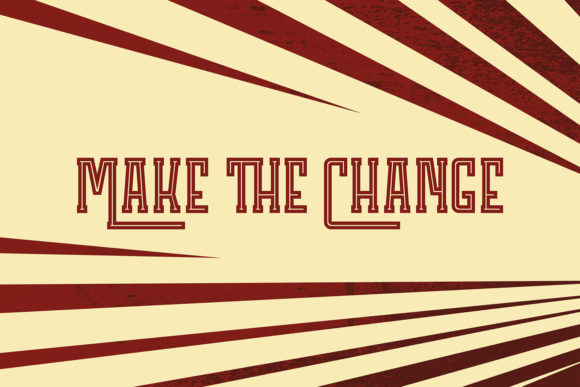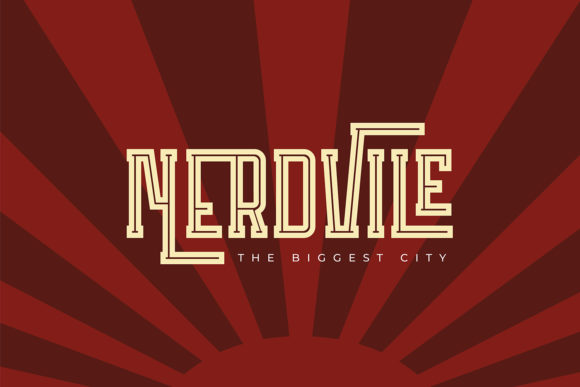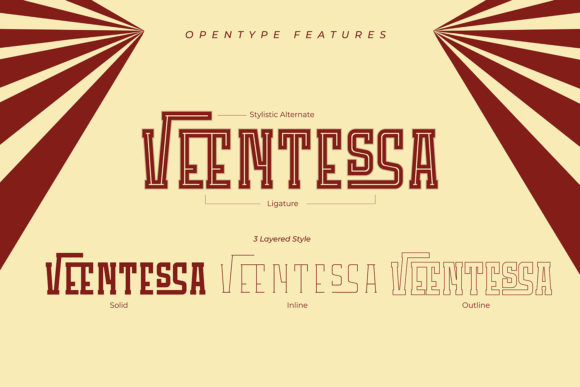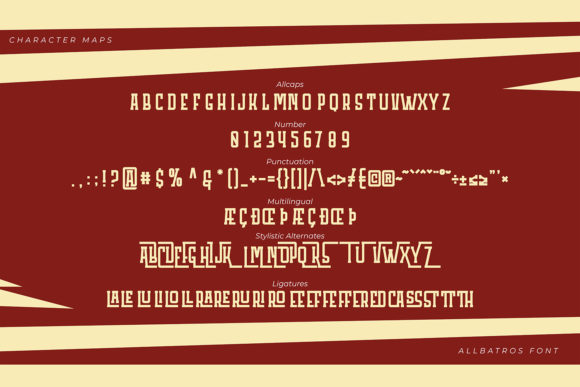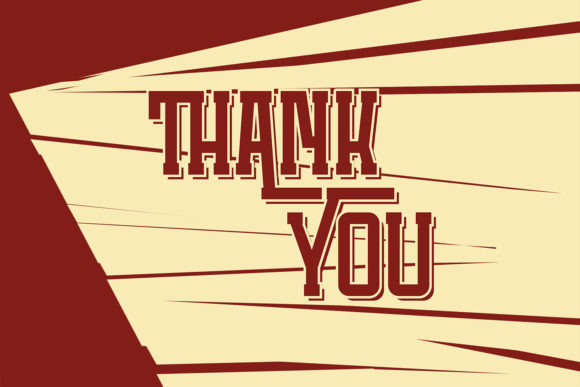
Introducing Allbatros Font: A Timeless Bold and Vintage Styled Serif
In the world of typography, fonts play a crucial role in conveying the tone and personality of a design. For designers and crafters, finding the perfect font can be a daunting task. However, if you’re looking for a bold and vintage styled serif font that can elevate your creations, look no further than Allbatros Font. In this article, we’ll explore the features and benefits of Allbatros Font, and why it’s an incredibly valuable asset to your font library.
What is Allbatros Font?
Allbatros is a bold and vintage styled serif font that exudes a sense of classic elegance and sophistication. Its unique design makes it perfect for a wide range of applications, from branding and advertising to packaging and editorial design. The font’s bold and sturdy structure ensures that it stands out, while its vintage flair adds a touch of nostalgia and character.
Key Features of Allbatros Font
- Bold and Sturdy Structure: Allbatros Font features a bold and sturdy structure that makes it perfect for headlines, titles, and other display text.
- Vintage Flair: The font’s vintage flair adds a touch of nostalgia and character to any design.
- Serif Details: The serif details on Allbatros Font add a level of sophistication and elegance, making it perfect for high-end branding and advertising.
- Versatility: Allbatros Font is incredibly versatile, making it suitable for a wide range of applications, from digital design to print.
Benefits of Using Allbatros Font
- Elevate Your Designs: Allbatros Font has the potential to elevate any creation, adding a touch of sophistication and elegance.
- Stand Out from the Crowd: The font’s bold and sturdy structure ensures that your designs stand out from the crowd.
- Increase Brand Recognition: By using a unique and recognizable font like Allbatros, you can increase brand recognition and build a strong visual identity.
In conclusion, Allbatros Font is a bold and vintage styled serif font that has the potential to elevate any creation. Its unique design, versatility, and range of benefits make it an incredibly valuable asset to your font library. Whether you’re a graphic designer, digital designer, crafter, or marketer, Allbatros Font is a must-have font that can help you create stunning designs that stand out from the crowd.